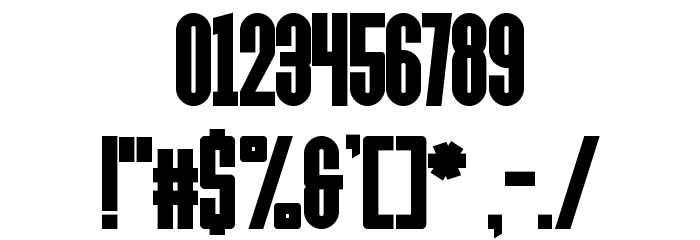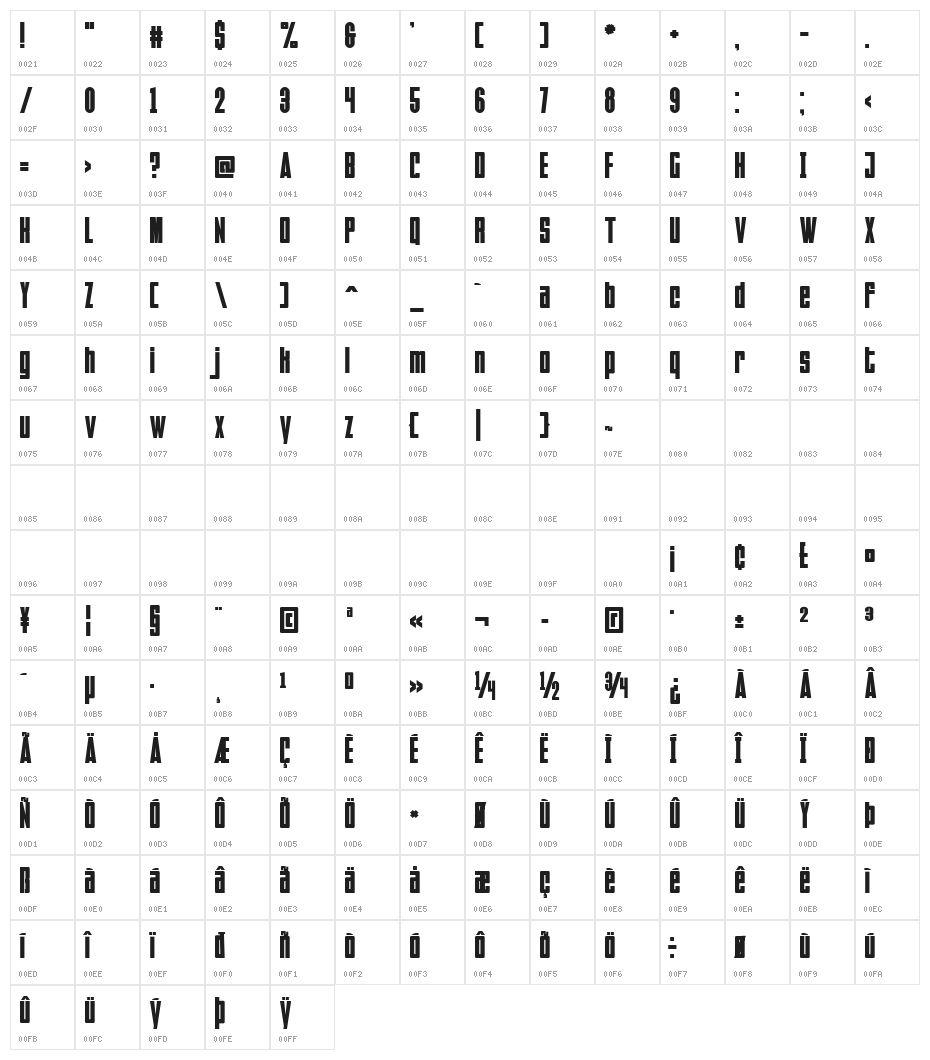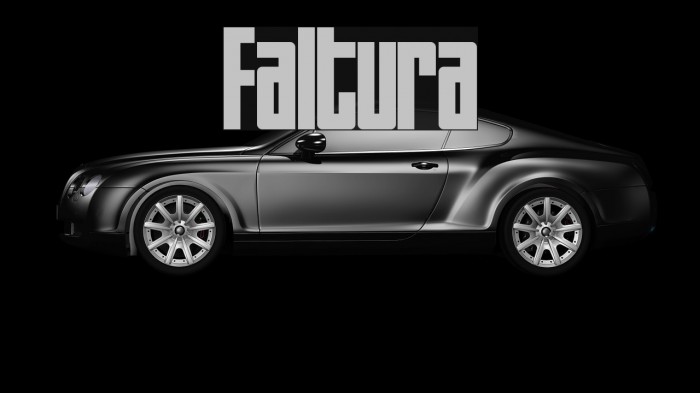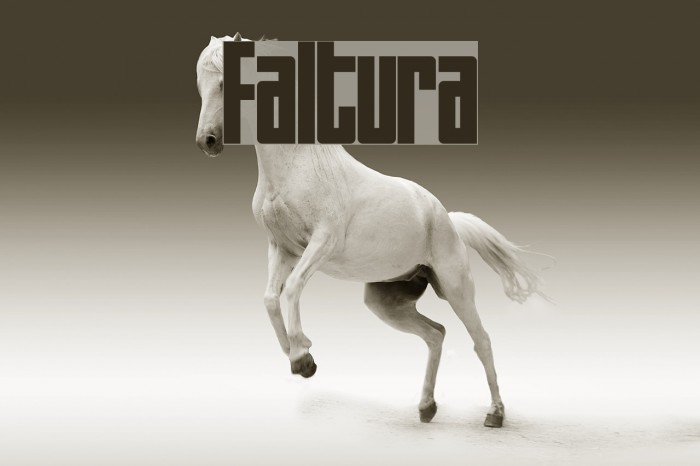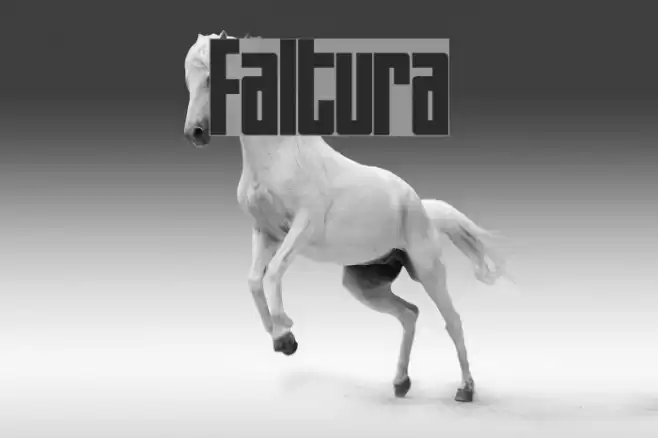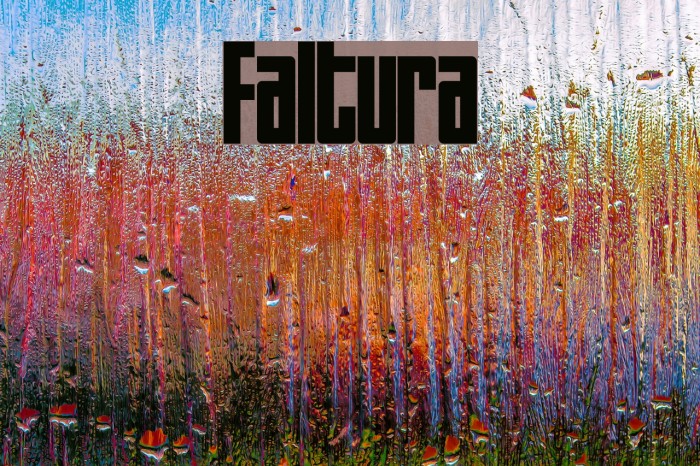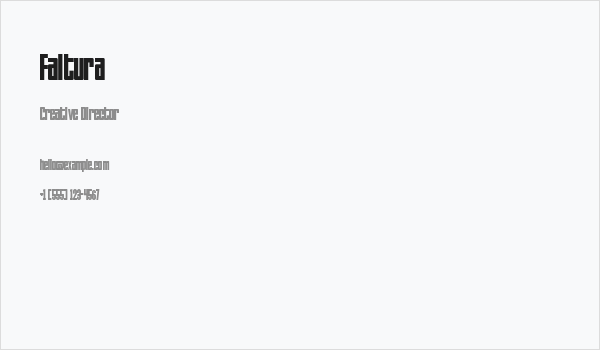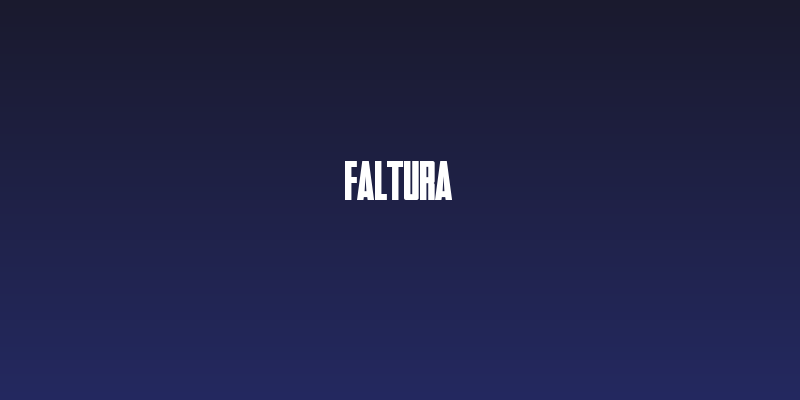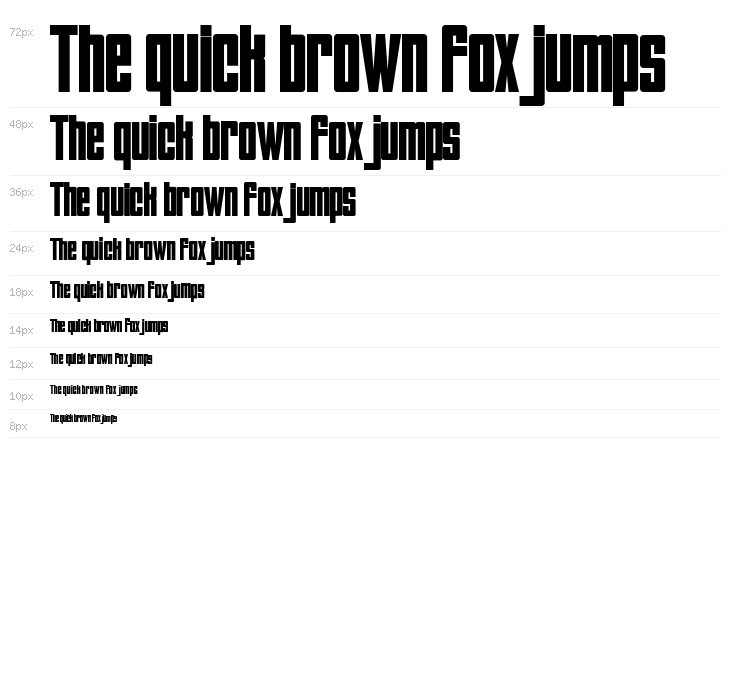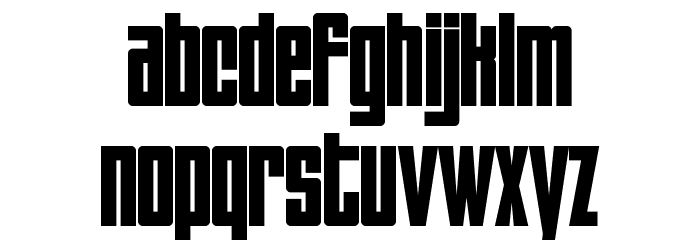
Faltura Font
Faltura Description
This font features a bold and impactful design with strong geometric shapes and a condensed structure. The uppercase letters are tall and imposing, while the lowercase letters maintain a consistent width, creating a uniform appearance. The numerals are equally bold, ensuring readability and emphasis. Special characters are designed with the same boldness, making them stand out. The overall style is modern and assertive, suitable for making a strong visual statement.
| Proposed Projects | Ideal for posters, headlines, branding, and any project requiring a strong visual impact. |